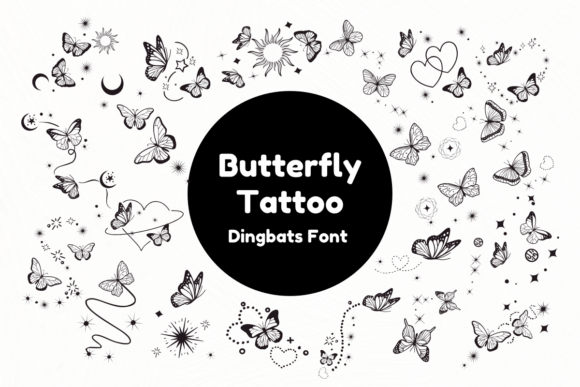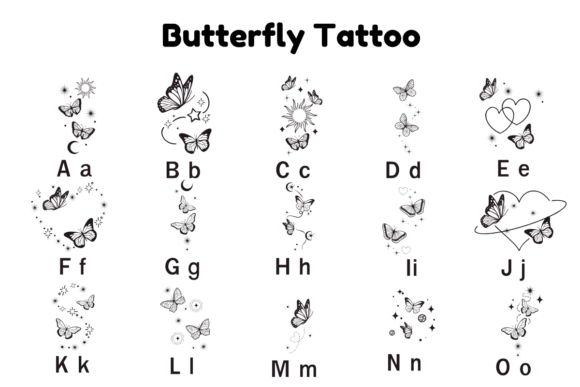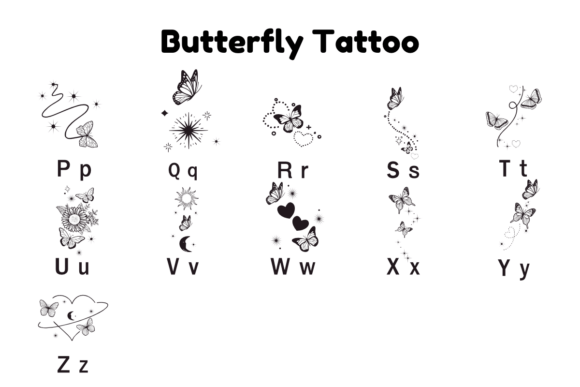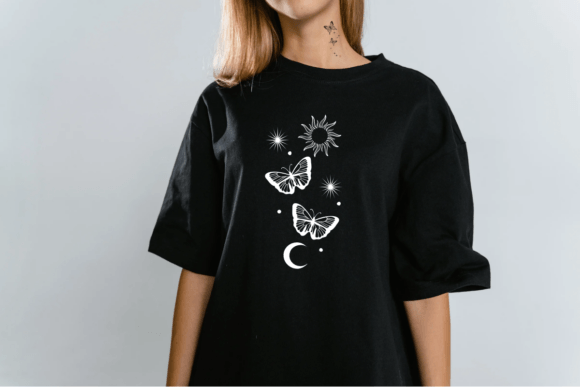
Butterfly Tattoo Font
About the Butterfly Tattoo Font
Make a bold statement with Butterfly Tattoo Font, a powerful and memorable font. A Butterfly Tattoo dingbat font features simple, decorative designs of butterflies, perfect for adding a whimsical, natural touch to any text or artwork. Each character in the font represents a different butterfly design, ideal for creative projects, tattoos, or graphic designs
This font’s whimsical nature makes it ideal for projects needing a light, playful touch, such as children’s books, greeting cards, or branding for businesses related to nature or fashion. It excels in short text applications like headlines, logos, and short phrases on packaging where individual characters can be appreciated. However, Butterfly Tattoo Font is unsuitable for body text or long paragraphs due to its decorative nature and potential for low readability.
Pairing it with a clean sans-serif like Helvetica Neue for body copy creates a pleasing contrast. For a more sophisticated look, consider pairing it with a delicate serif font such as Garamond or a script typeface like Pacifico for a touch of elegance. Avoid pairing it with other highly decorative fonts as this could result in a visually cluttered and overwhelming design.
The overall personality is undeniably cheerful and carefree, making it a strong choice for projects aiming for a lighthearted and approachable aesthetic. Its decorative style adds visual interest, but its limitations should be carefully considered within the context of the design.